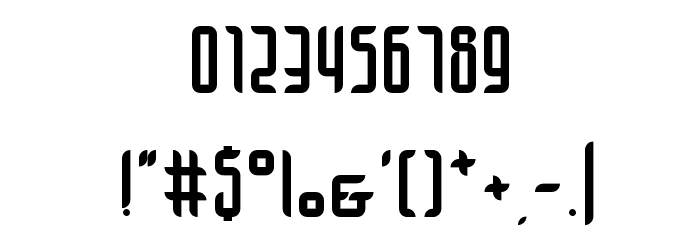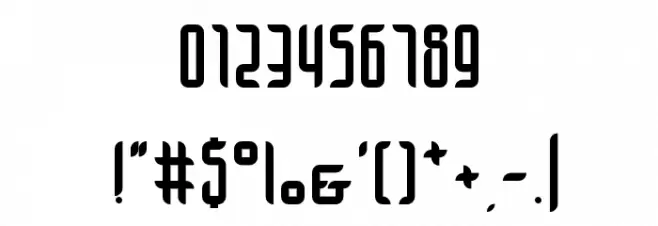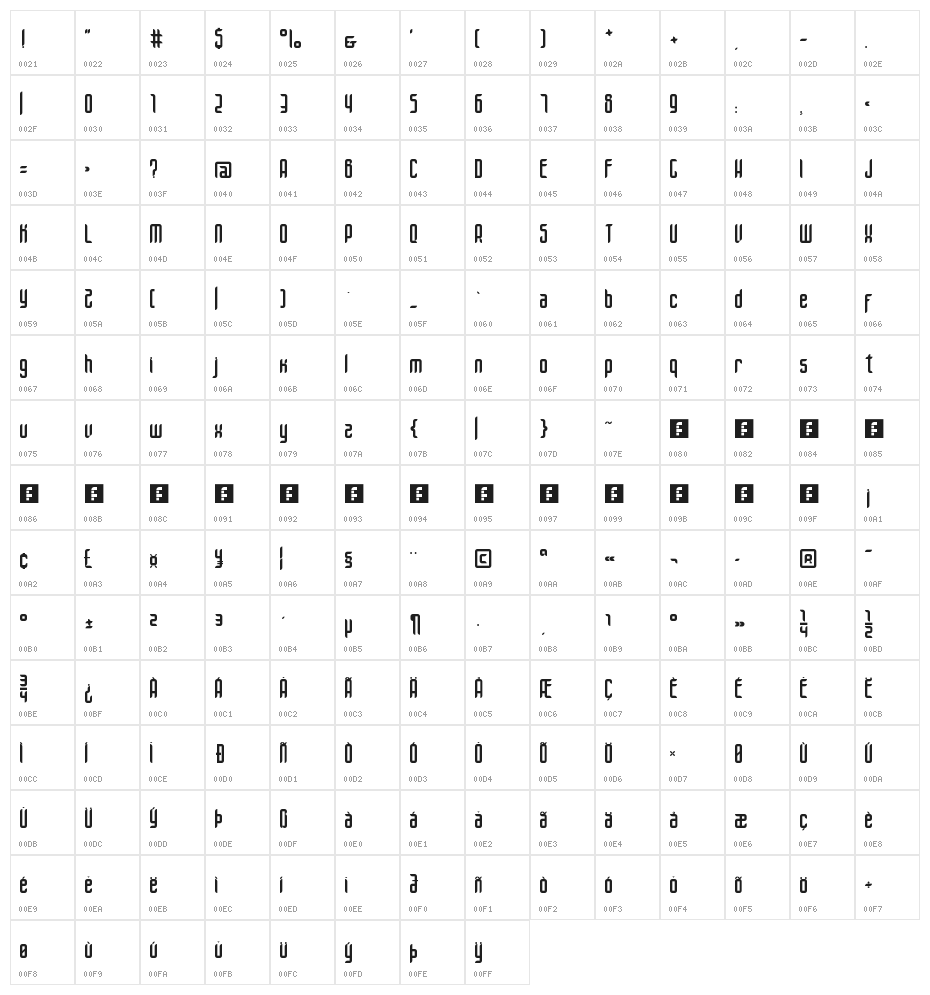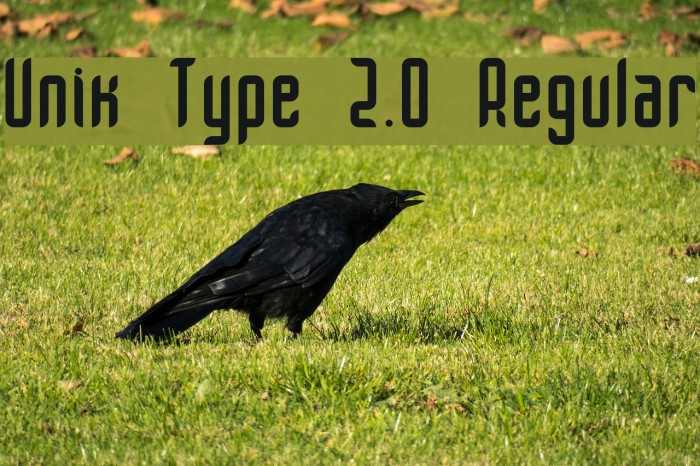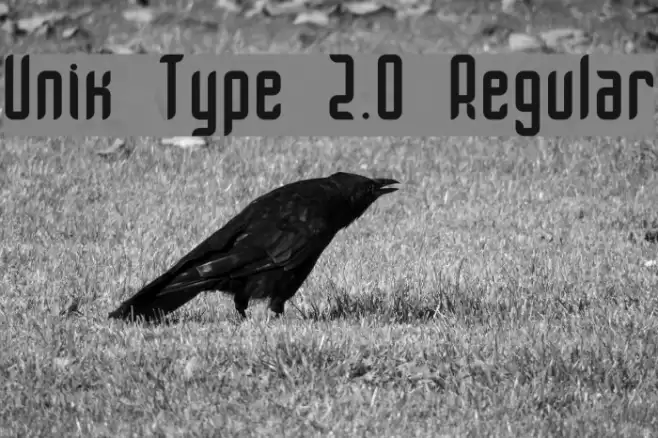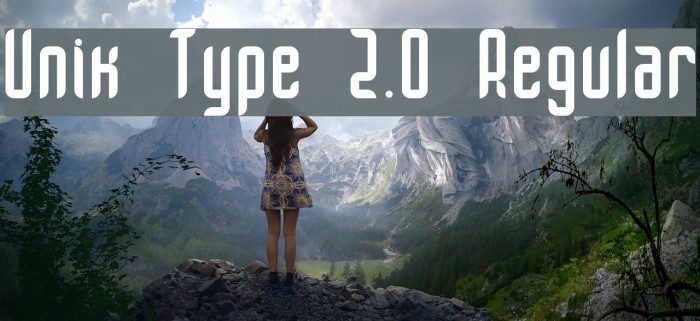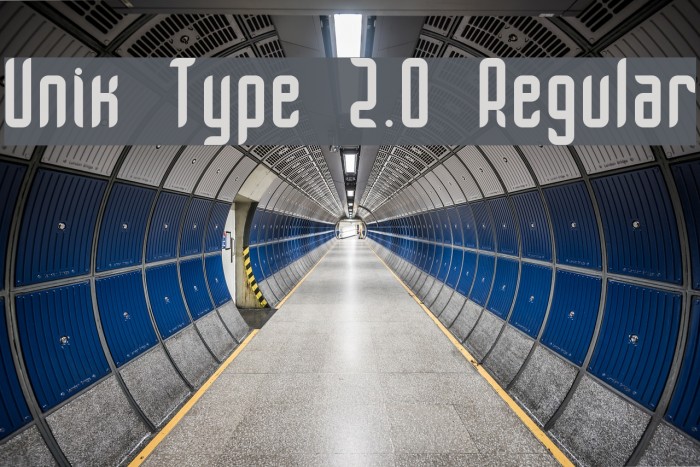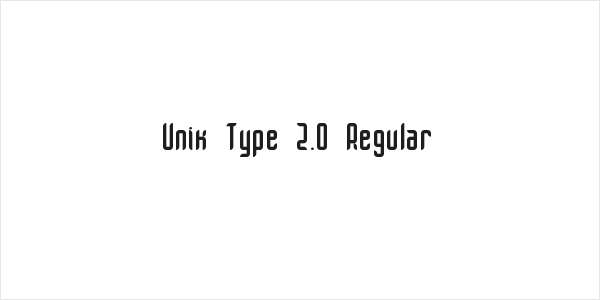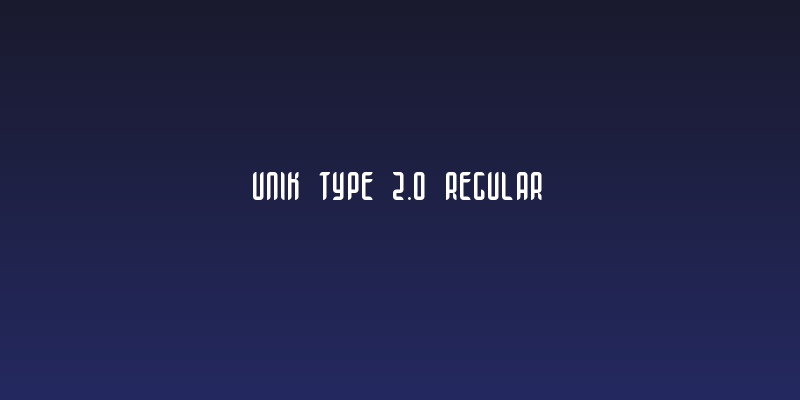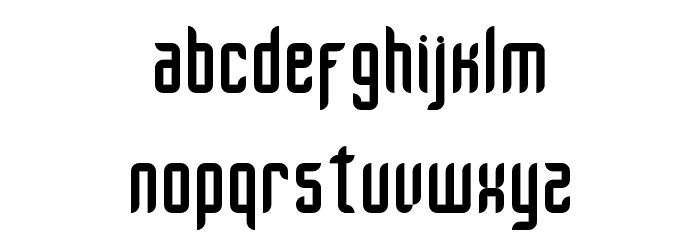
Unik Type 2.0 Regular Font
Unik Type 2.0 Regular Description
This font features a modern and geometric design with a distinct, futuristic appearance. The characters are bold and have a uniform stroke width, giving them a strong presence. The rounded edges and unique cutouts within the letters add a dynamic and contemporary feel. The uppercase and lowercase letters maintain a consistent style, while the numerals and special characters complement the overall aesthetic. This font is well-suited for projects that require a bold and innovative look.
Proposed ProjectsIdeal for technology branding, futuristic posters, and innovative product packaging.